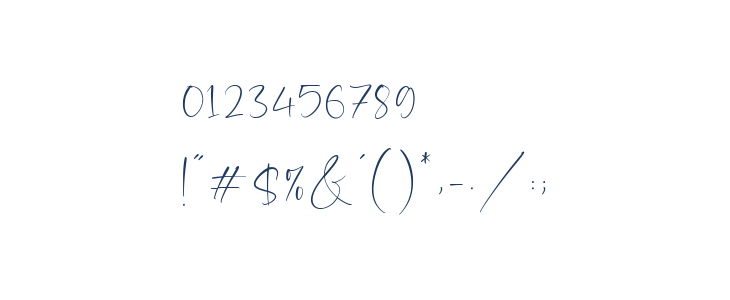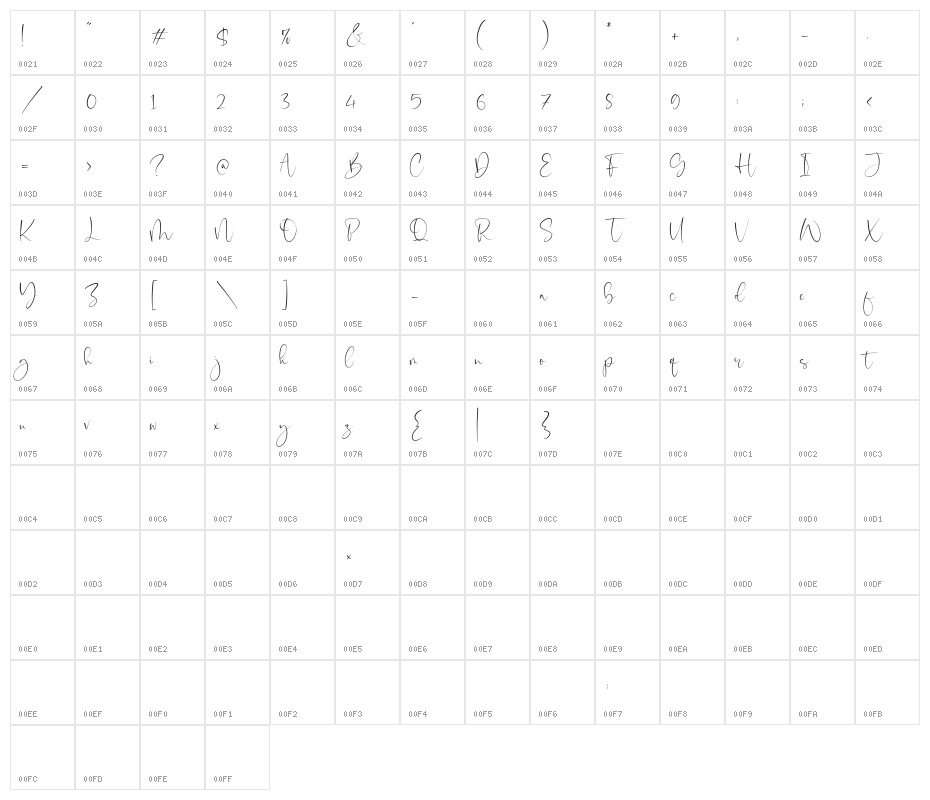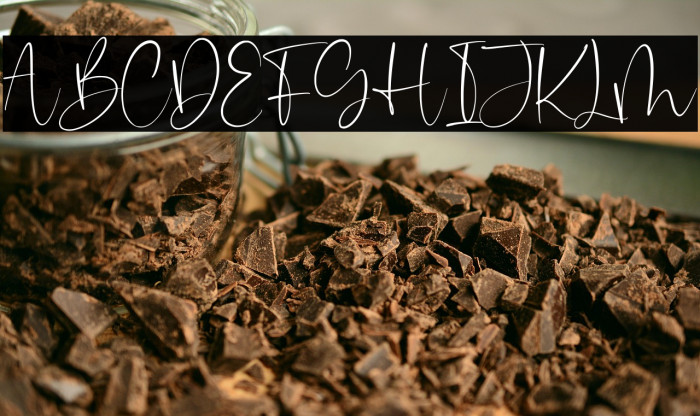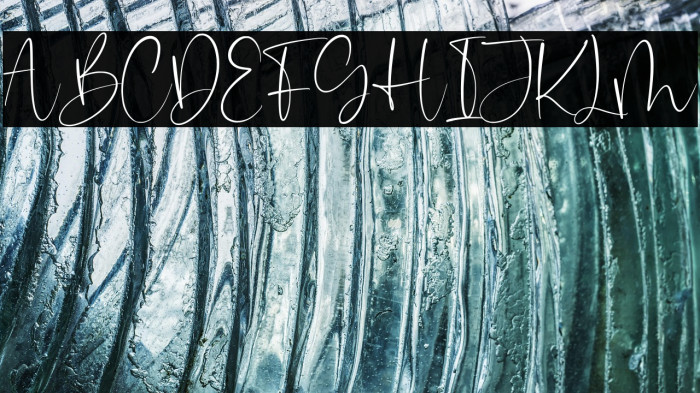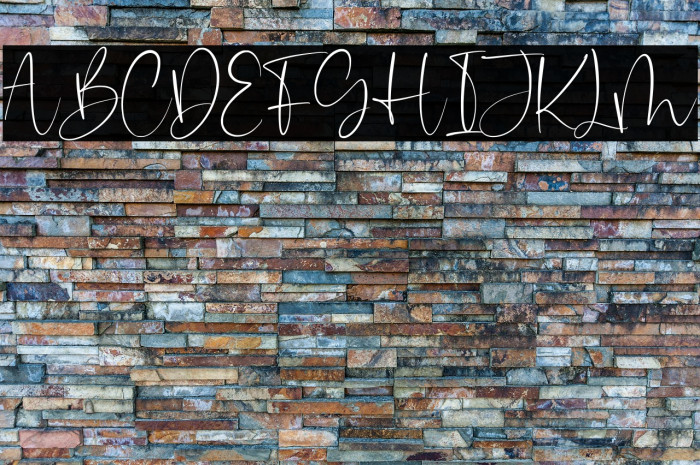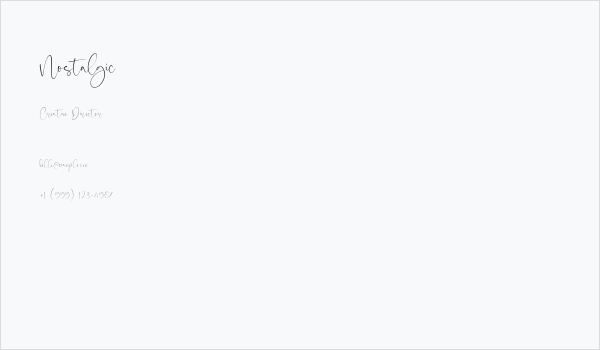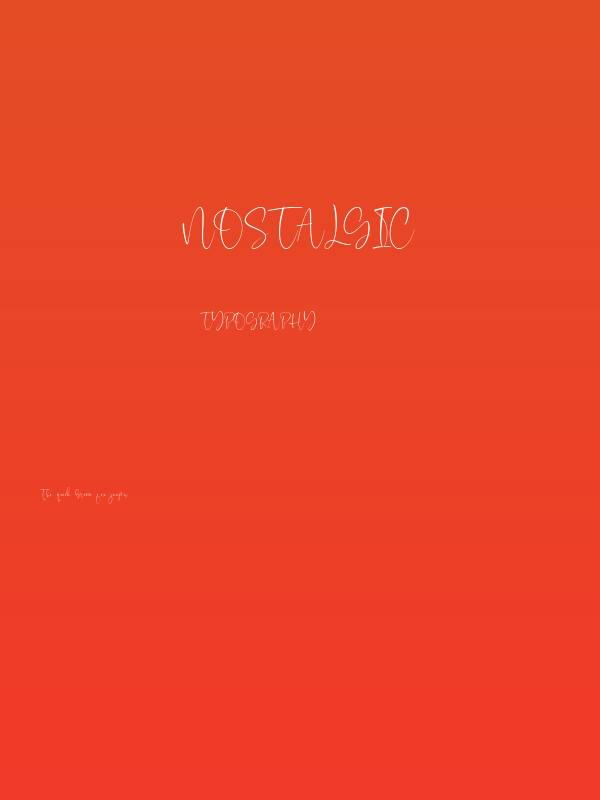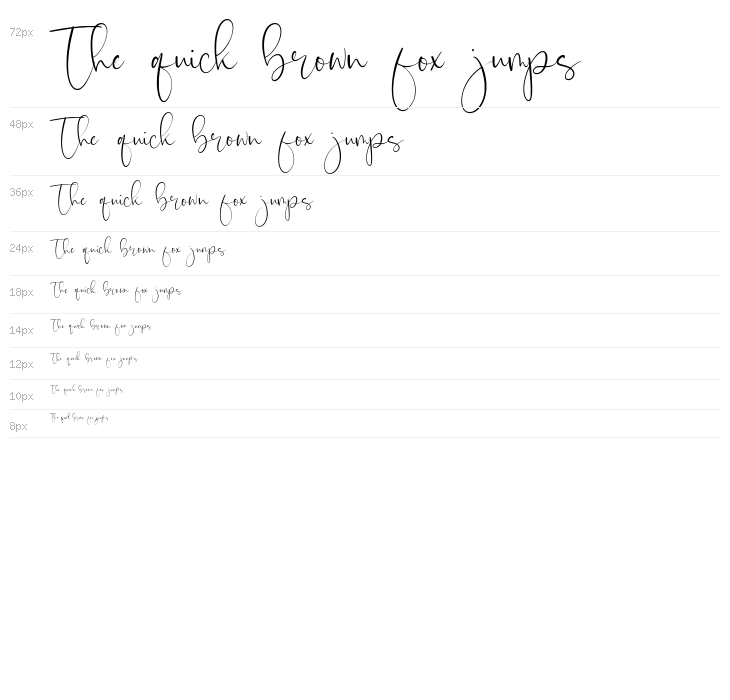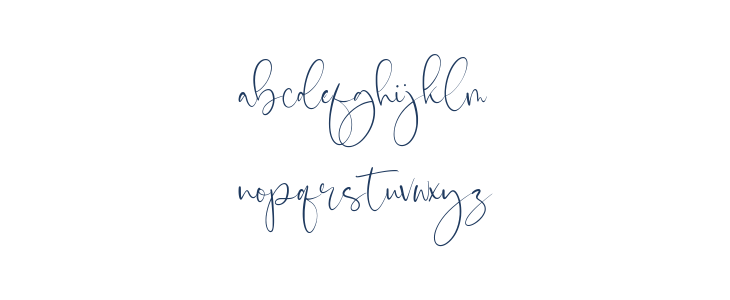
Nostalgic Font
Nostalgic Description
This font exudes a whimsical and elegant charm, characterized by its flowing, cursive style. The uppercase letters are tall and slender, with a slight slant that adds a dynamic feel. The lowercase letters are more intricate, with loops and flourishes that enhance its decorative nature. The numbers maintain a consistent style with the letters, offering a cohesive look. Special characters are crafted with the same attention to detail, making them seamlessly integrate with the rest of the font. The overall aesthetic is reminiscent of handwritten calligraphy, perfect for projects that require a personal touch.
| Proposed Projects | Ideal for wedding invitations, greeting cards, personal branding, and elegant packaging designs. |